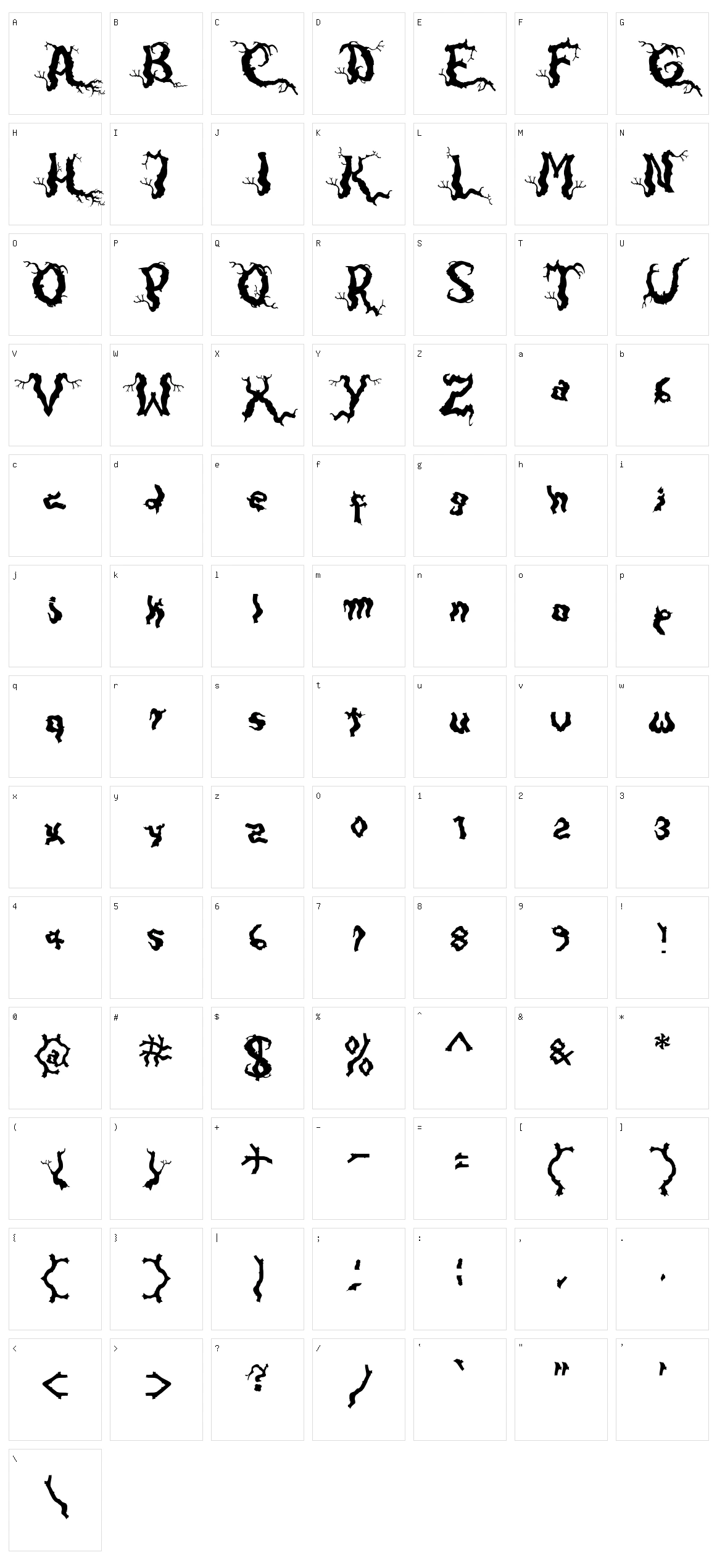
The free font Darkwood is carefully designed by Otto Maurer Design, showcasing a thoughtful balance of creativity and usability and falls under the Halloween font style. When you download the ZIP file, it contains only 283.49 KB of font files, making it lightweight and quick to download. Please review the license details below to understand permitted usage and distribution rights. If license information is not available, we recommend using this font for personal projects only or contacting the author directly for commercial usage permissions.